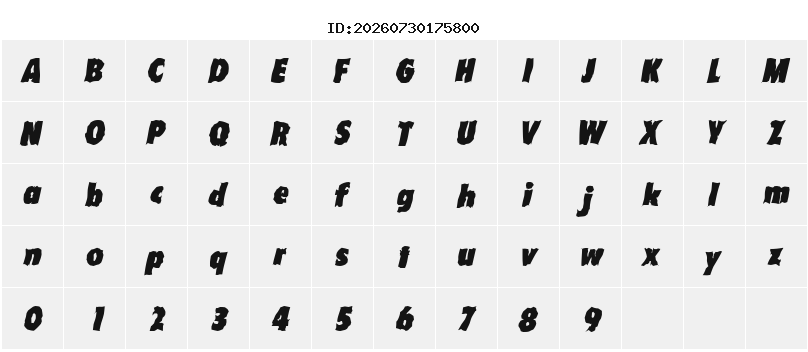
LuisBeckerRandom-Black Preview
• Font Name: LuisBeckerRandom-Black
• Font ID: Alts:LuisBeckerRandom-Black-Italic
• Full Font Name: LuisBeckerRandom-Black-Italic
• PostScript Name: LuisBeckerRandom-Black-Italic
About LuisBeckerRandom-Black.ttf
LuisBeckerRandom-Black.ttf is a modern, elegant sans-serif font designed for ultimate readability and visual harmony. Perfect for branding, headlines, web design, and print materials.